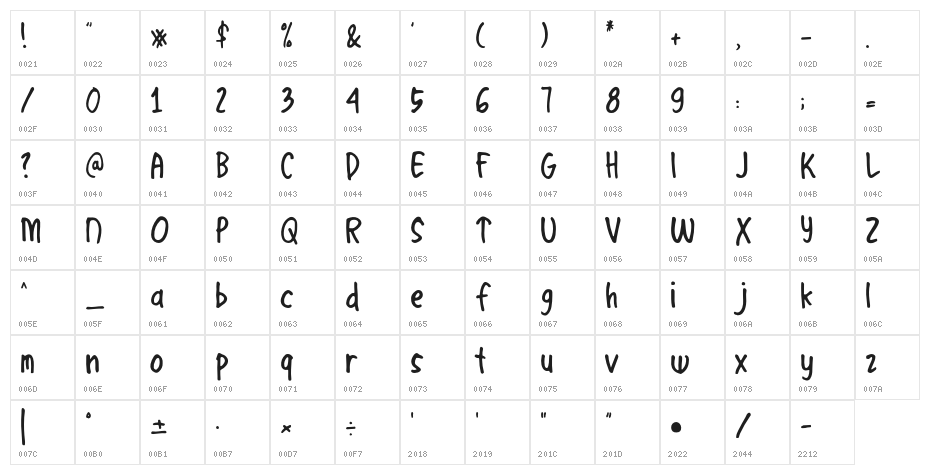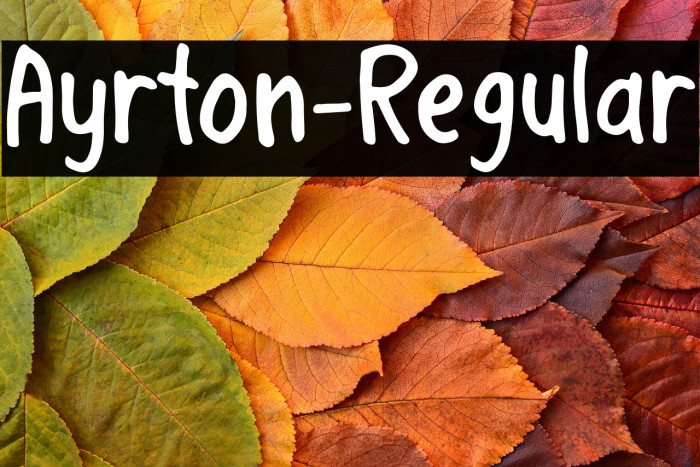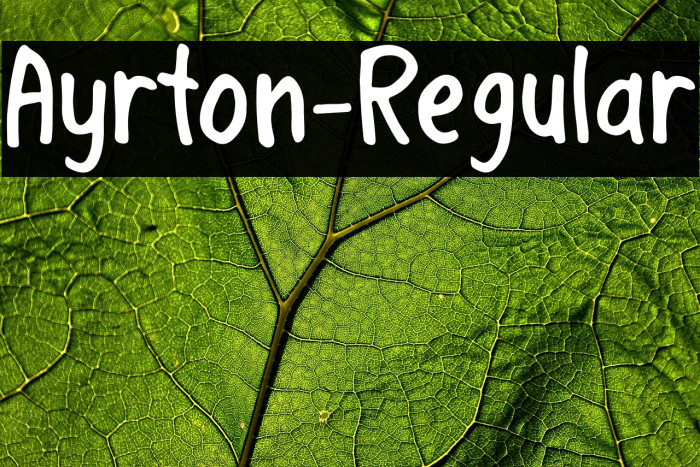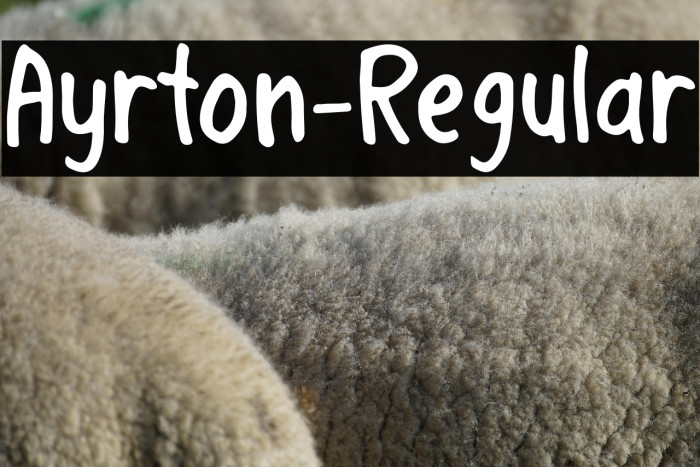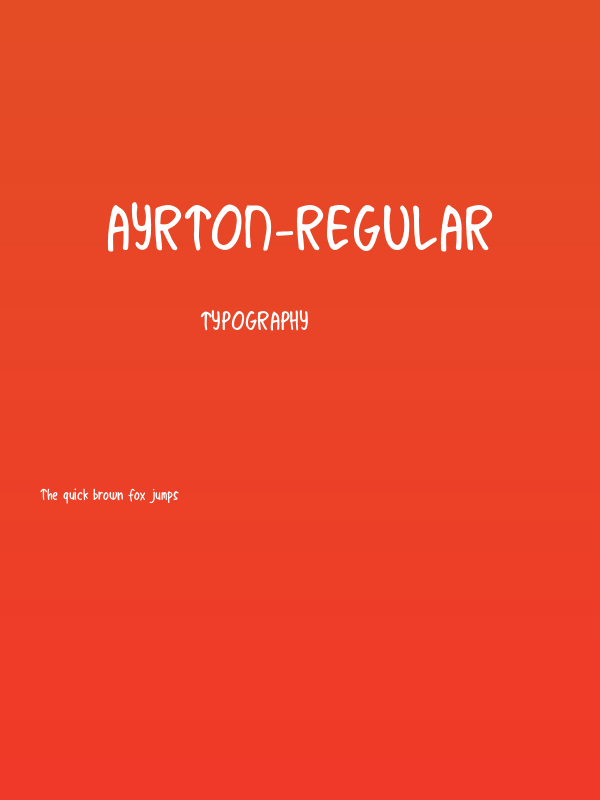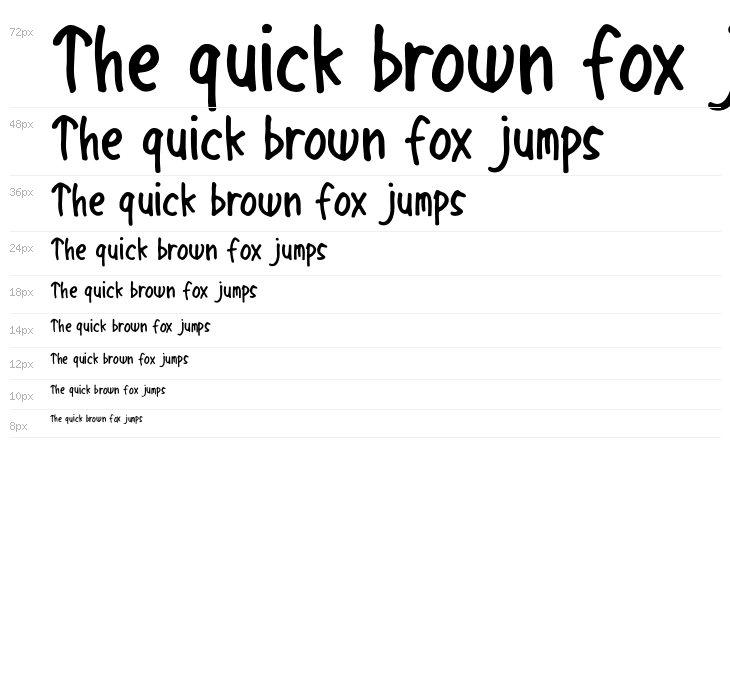
Ayrton-Regular Font
Ayrton-Regular Description
This font exhibits a playful and informal handwritten style, characterized by its rounded and slightly irregular letterforms. The strokes are consistent in width, giving it a uniform appearance, yet the slight variations in each character add a touch of personality and warmth. The uppercase and lowercase letters maintain a cohesive look, while the numerals and special characters blend seamlessly with the overall design. This font's casual and friendly aesthetic makes it suitable for projects that aim to convey approachability and creativity.